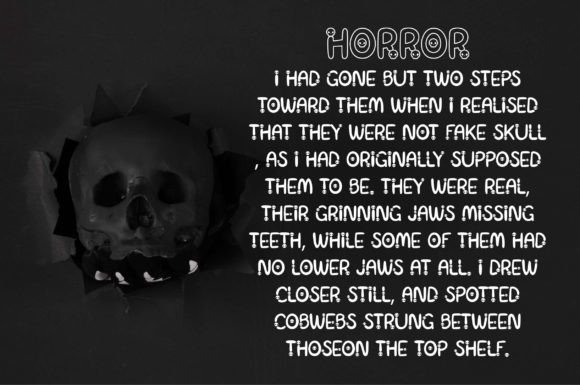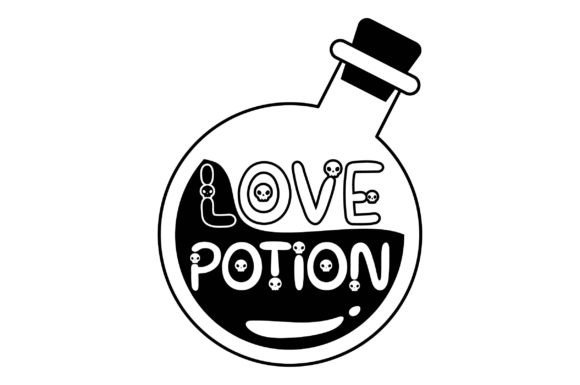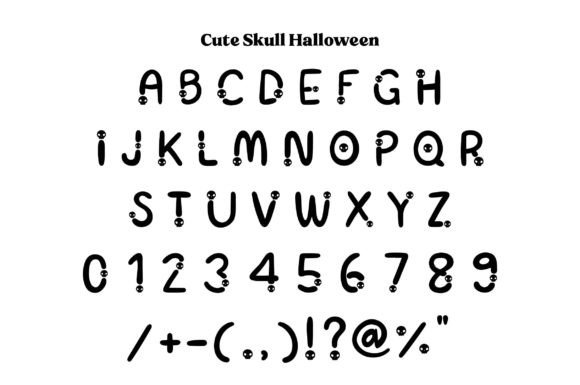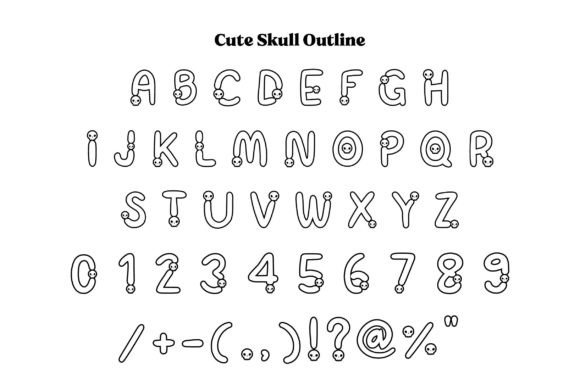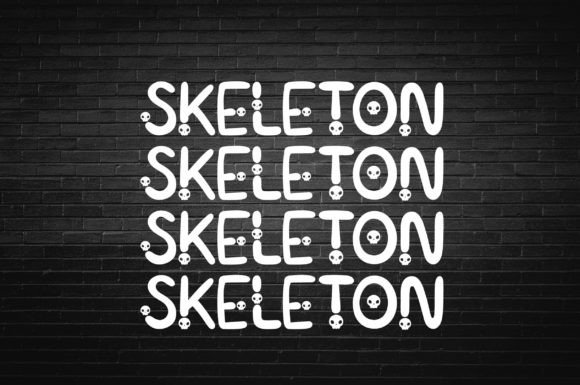
Introduction to Skull Halloween Font
Immerse yourself in the Halloween spirit with the unique and playful “Cute Skull Halloween” font, available in both regular and outline styles.
Possessing a charming quality, this font adds a delightful touch to any design with its whimsical skull theme It’s the perfect choice for infusing a bit of fun into school projects, enhancing the creativity of your worksheets, or adding a quirky element to your t-shirt designs.
Key Features of Skull Halloween Font
Why Choose Skull Halloween Font?
Skull Halloween Font offers exceptional quality and versatility, making it a valuable addition to your design toolkit. Whether you’re creating for personal projects or commercial use, Skull Halloween Font delivers professional results.